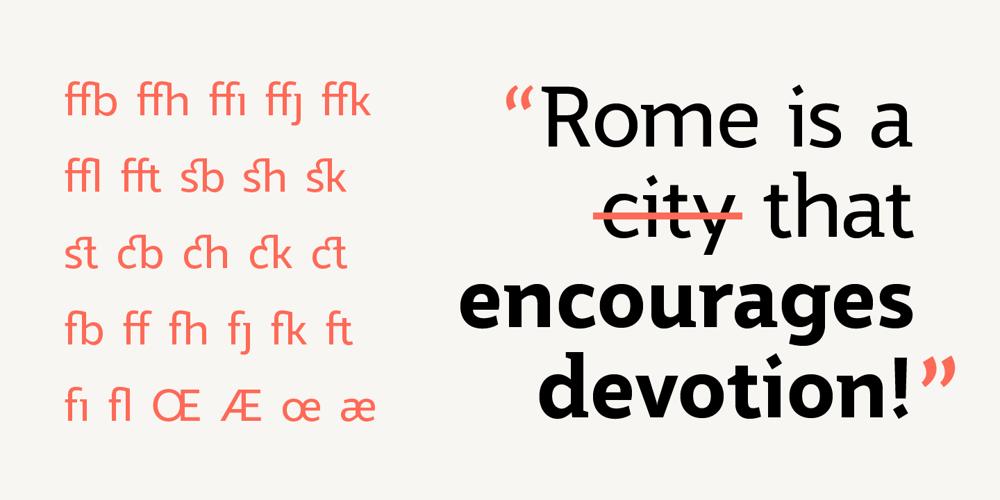
Jotia
Jotia font
Jotia Font Family was designed by Rebecca Armstrong and published by Hashtag Type. Jotia contains 6 styles and family package options. Creating a combination between serif and sans serif typefaces, Jotia utilises the best of both worlds, resulting in a unique and modern neo-humanist font family. Taking its inspiration from lapidary inscriptions rather than pen drawn text, Jotia uses triangular serif shape details to create a strong uniformed personality with clear legibility. This original quality enables characters to be expressive in headlines, as well as in printed and onscreen text situations. Jotia also works beautifully alongside both serif and sans serif typefaces giving complex editorial work a more powerful and visually stimulating dynamic. Details include six weights, manual kerning and spacing, ligatures and alternatives.